Vintage Font Bundle
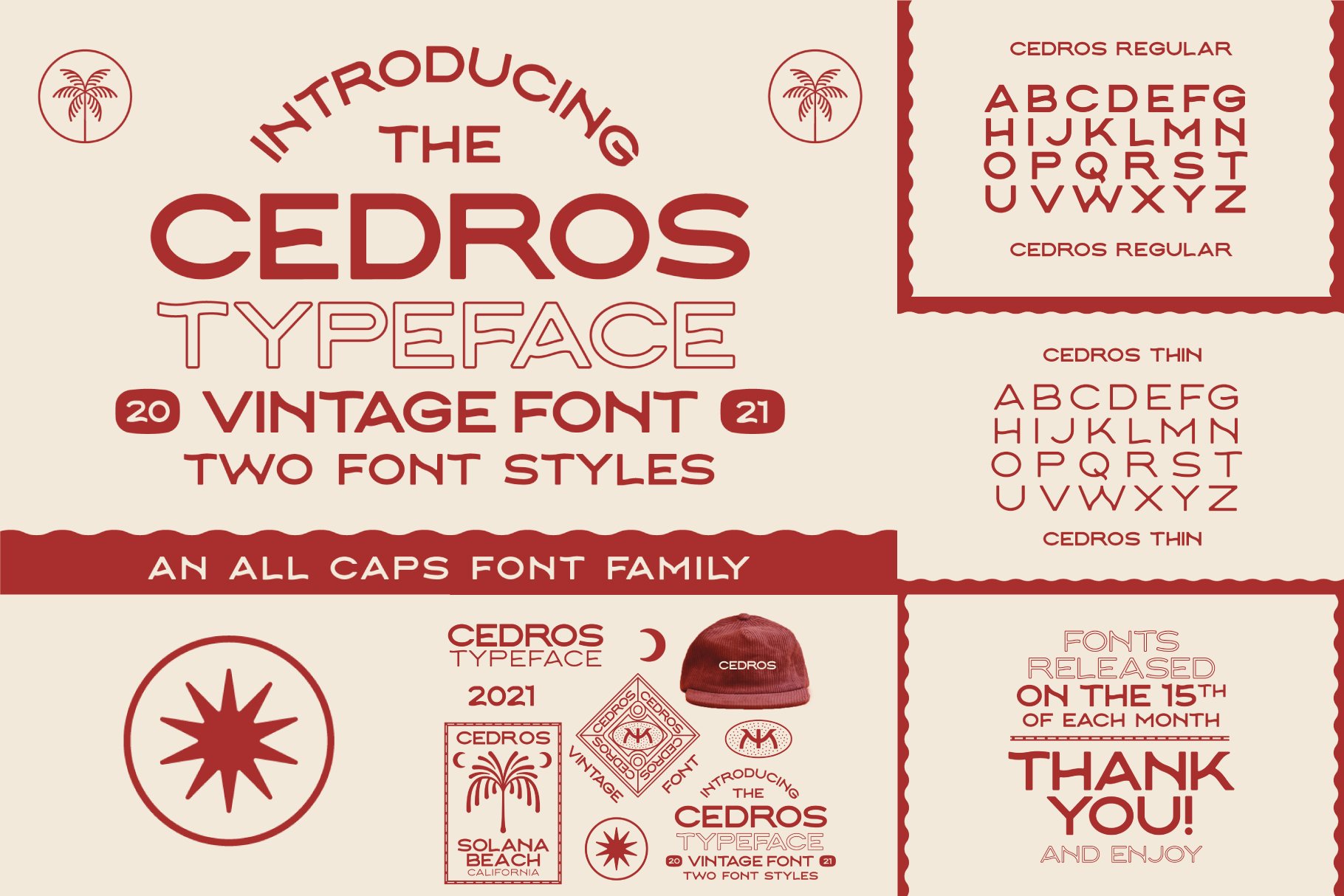
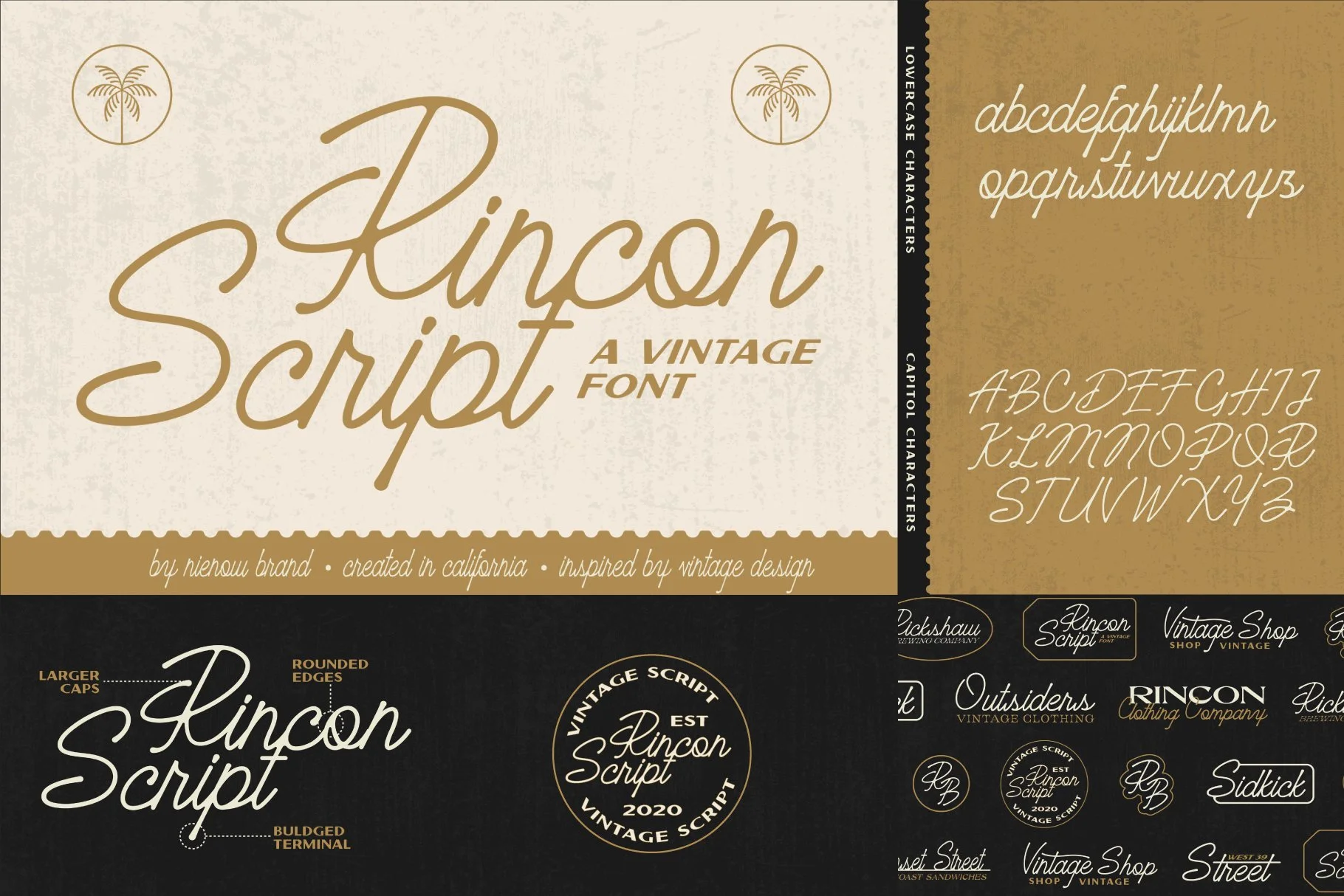
Vintage Font Bundle
This bundle includes the best selling fonts from the shop. Everything you need from fonts, brushes, illustrations, and badge templates are included in this bundle to create a great vintage design.
Saratoga Typeface
2 Saratoga Type Styles
Highline Typeface
5 Highline Type Styles
Desert Display Typeface
5 Desert Display Type Styles
Santa Rosa Typeface
Cedros Typeface
2 Cedros Type Styles
Sunwell Typeface
3 Sunwell Type Styles
Morro Typeface
3 Morro Type Styles
Rincon Typeface
1 Rincon Type Style
Ramona Typeface
4 Ramona Type Styles
Almetz Typeface
4 Almetz Type Styles
Mesa Typeface
6 Mesa Type Styles
Lanai Typeface
6 Lanai Type Styles